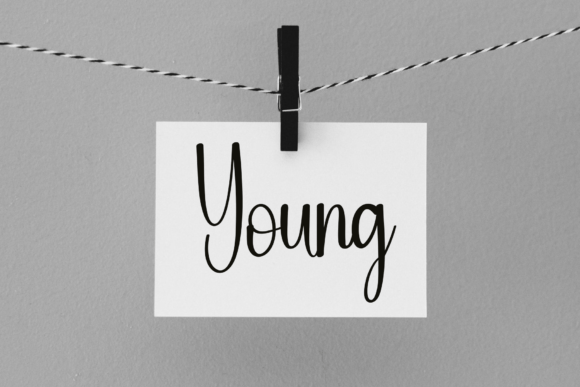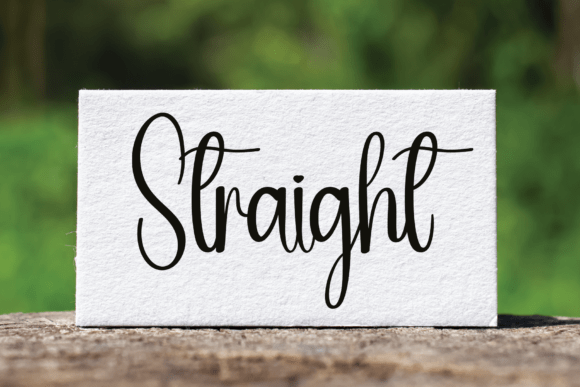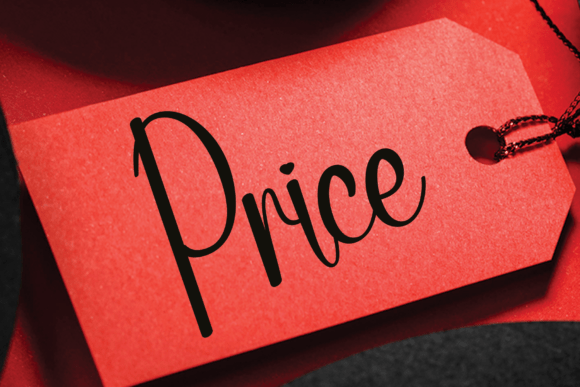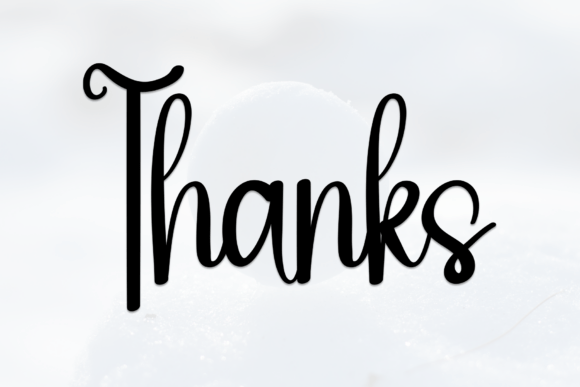
Discover the Joy of Baby Snowman Font
As designers, we’ve all had those moments when inspiration strikes and we’re left with a blank canvas, eager to bring our ideas to life. For me, it was a lazy Sunday morning, sipping hot coffee and flipping through a vintage journal, when I stumbled upon a handwritten note that read ‘Love is in the imperfections.’ It was then that I knew I had to create a font that captured the essence of that feeling – a font that would evoke warmth and personality in every design.
Enter the Baby Snowman Font, a charming handwritten font that embodies the spirit of heartfelt perfection. With its smooth strokes and organic lines, this font is perfect for designers looking to add a touch of whimsy and personality to their projects. Whether you’re working on branding, invitations, or social media graphics, the Baby Snowman Font is sure to bring a smile to your audience’s face.
Baby Snowman Font Key Features
- Font Style: Hand-Drawn, Whimsical, and Playful
- Unique Characteristics: Includes snowman-themed ornaments and accents for added visual interest
Baby Snowman Font Review
I recently had the chance to work with the Baby Snowman Font, and I have to say it’s a mixed bag. On one hand, the font has a lot of charm and personality. ✨ The rounded edges and soft lines give it a friendly, approachable feel that’s perfect for kid-friendly designs or winter-themed projects. ✨ The font also has a good range of weights and styles, making it versatile and easy to use.
However, there are some limitations that I think are worth mentioning. ⚠️ For one thing, the font can be a bit difficult to read at smaller sizes, which might limit its use in certain contexts. ⚠️ Additionally, the font’s rounded edges can sometimes make it look a bit childish or immature, which might not be suitable for all designs.
- Charming, friendly feel
- Good range of weights and styles
- Perfect for kid-friendly designs or winter-themed projects
- Can be difficult to read at smaller sizes
- May look childish or immature at times
Overall, I think the Baby Snowman Font is a solid choice for designers who are looking for a friendly, approachable font for kid-friendly or winter-themed projects. However, it may not be the best choice for more complex or high-end designs.
Use the Baby Snowman Font for:
- Winter-themed designs (e.g., Christmas cards, snowflake invitations).
- Children’s birthday party invitations or decorations.
- Fun and playful social media graphics.
Alternatives to Baby Snowman Font
Great Vibes Font is a beautiful, handwritten script font perfect for creating a whimsical and elegant feel in designs. It’s ideal for use in wedding invitations, quotes, and other creative projects where a touch of personality is needed. Great Vibes Font is more elegant and refined compared to Baby Snowman Font, which is more playful and casual.
Alex Brush Font is a high-end, elegant script font that exudes sophistication and luxury. It’s perfect for use in high-end branding, logos, and packaging designs where a touch of glamour is required. While Baby Snowman Font is more playful and childlike, Alex Brush Font is more mature and refined, making it a great alternative for designers looking for a similar elegant feel.
Pacifico Font is a beautiful, modern script font with a relaxed and beachy feel. It’s perfect for use in designs that require a casual and laid-back vibe, such as travel brochures, restaurant menus, and outdoor apparel designs. While Baby Snowman Font is more playful and fun, Pacifico Font is more laid-back and easy-going, making it a great alternative for designers looking for a similar relaxed feel.